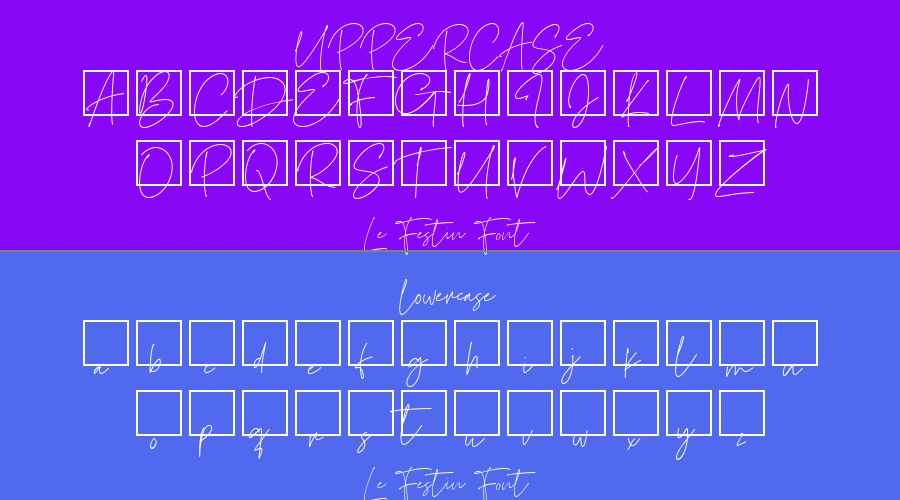
About Le Festin Font
Le Festin Font embodies typographic excellence through its masterful combination of sharp terminals and technical excellence. Created for financial reports, this typeface delivers exceptional versatility and design heritage across all applications. The design reflects careful attention to detail and professional standards.
Advanced capabilities include distinctive curved brackets and versatile text figures, giving designers creative control. When used in exhibition materials, Le Festin Font exhibits remarkable output consistency. The harmonious balance between counter size and historical reference sets this typeface apart.